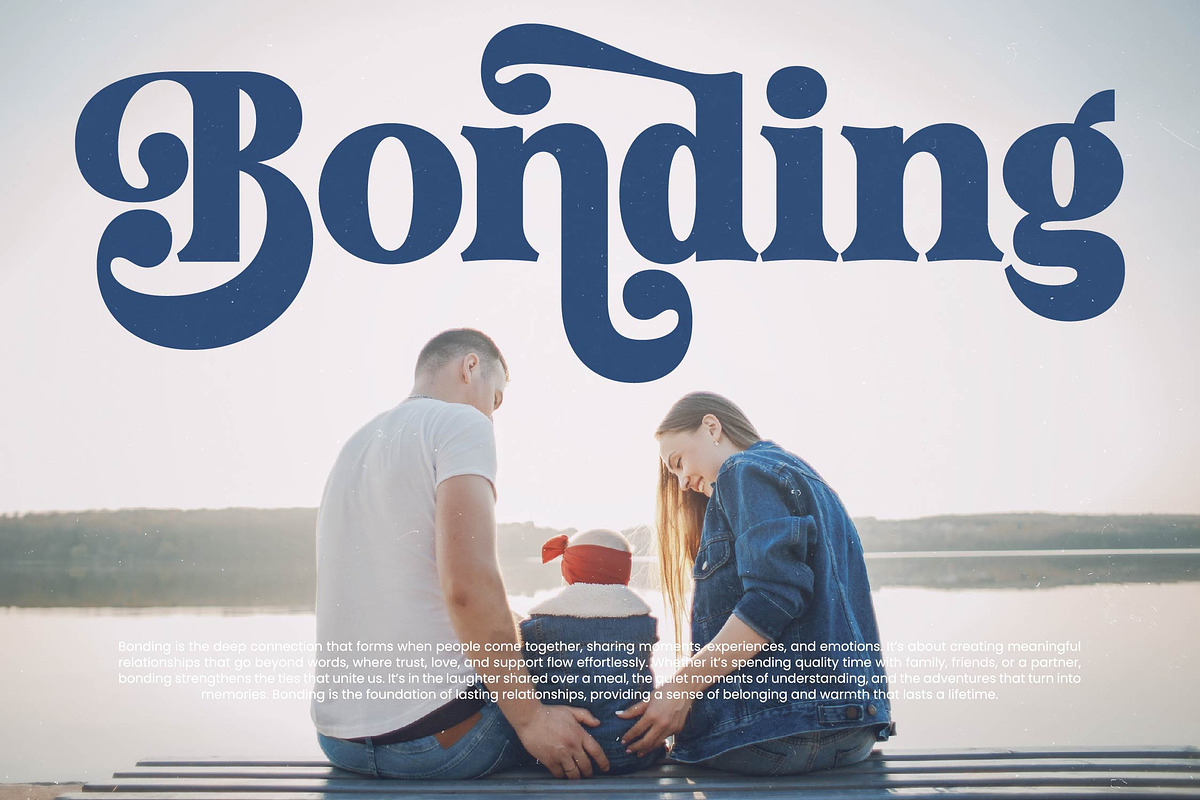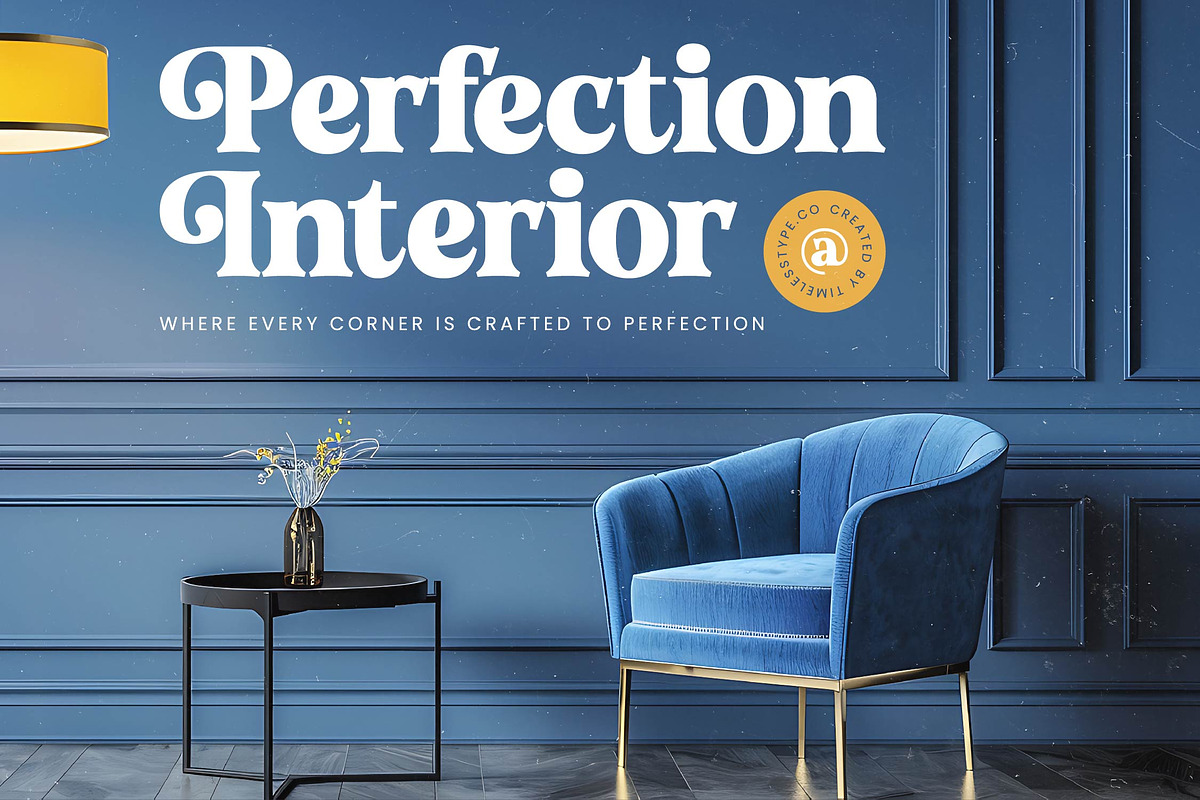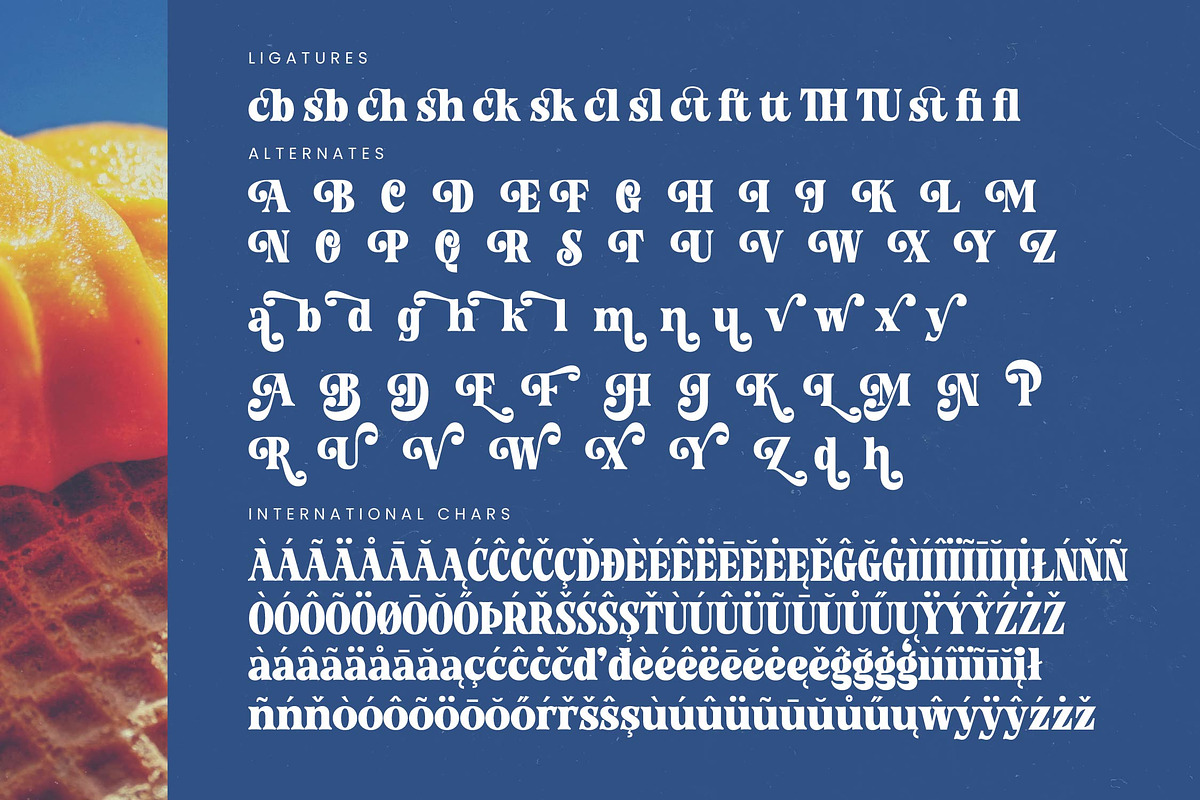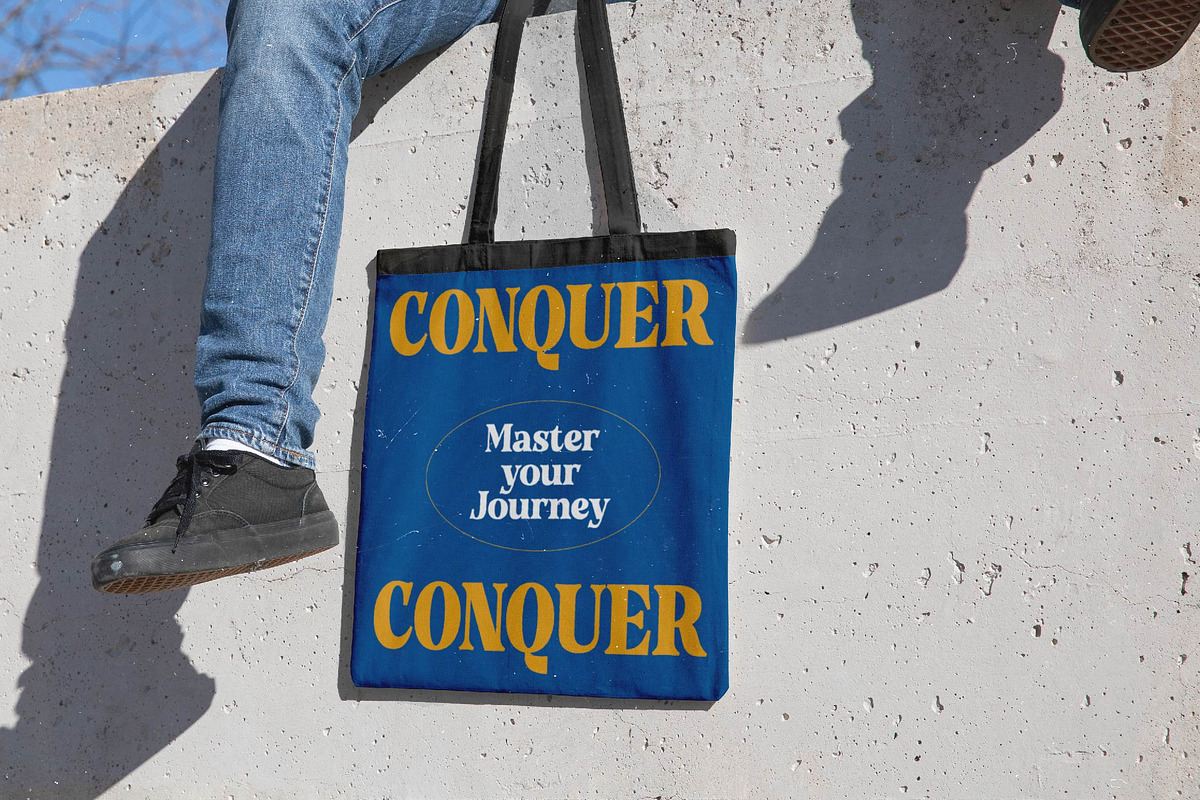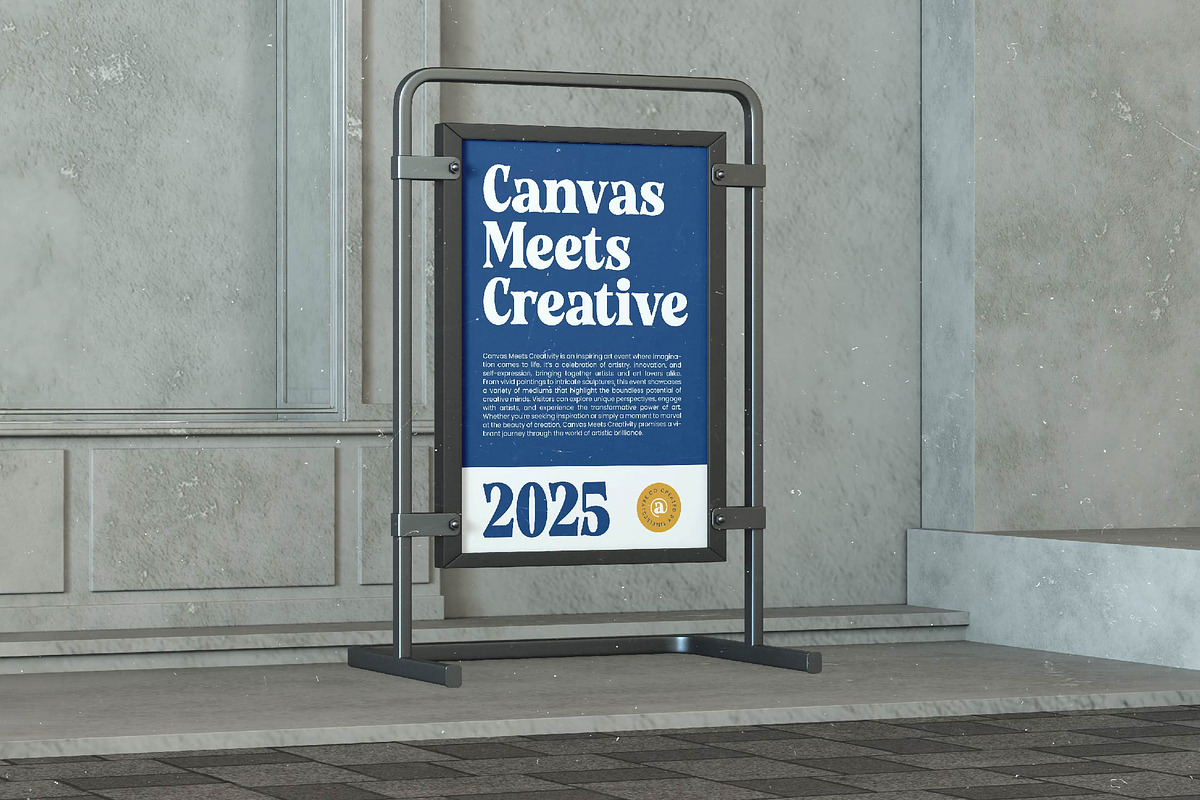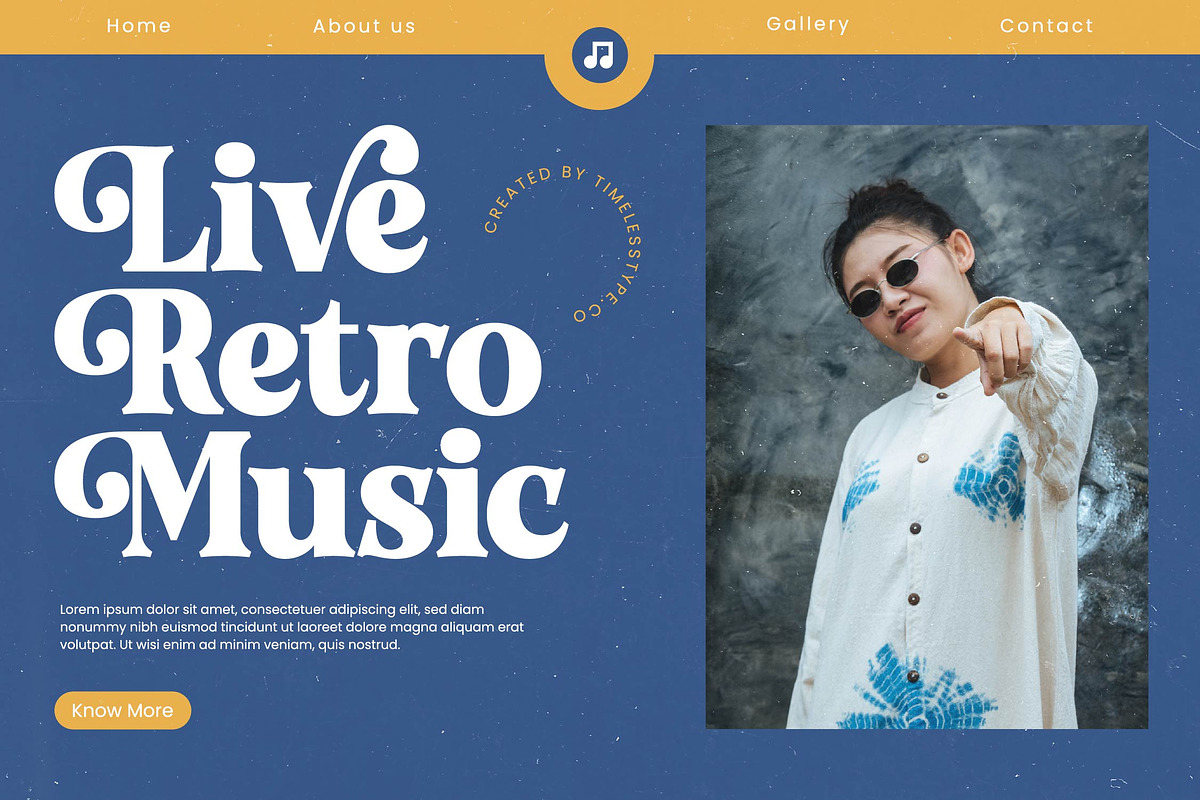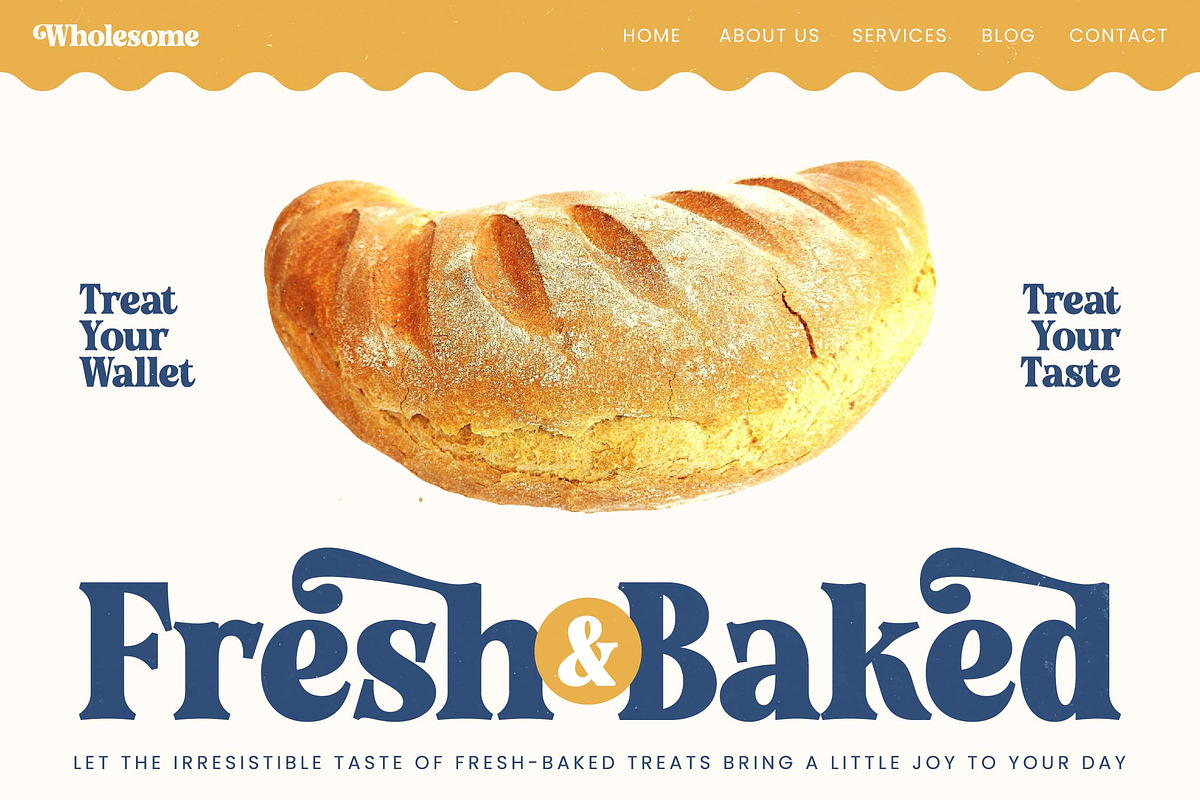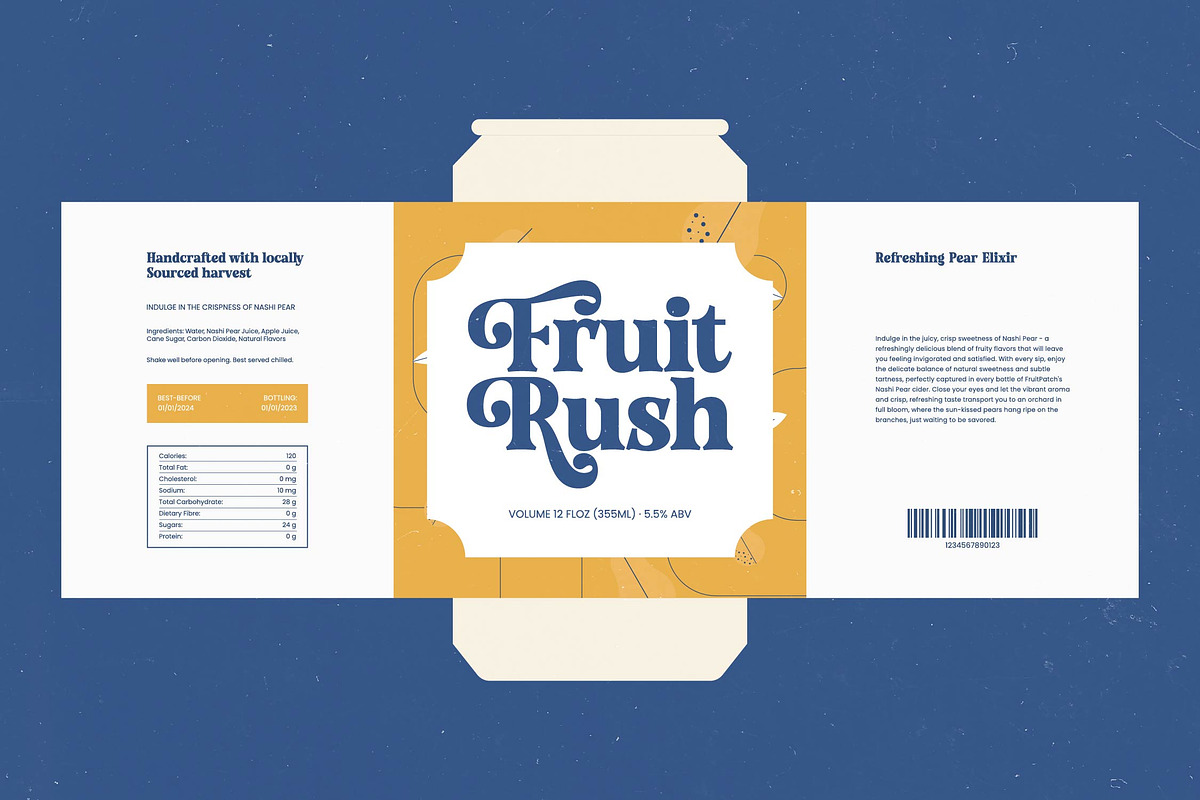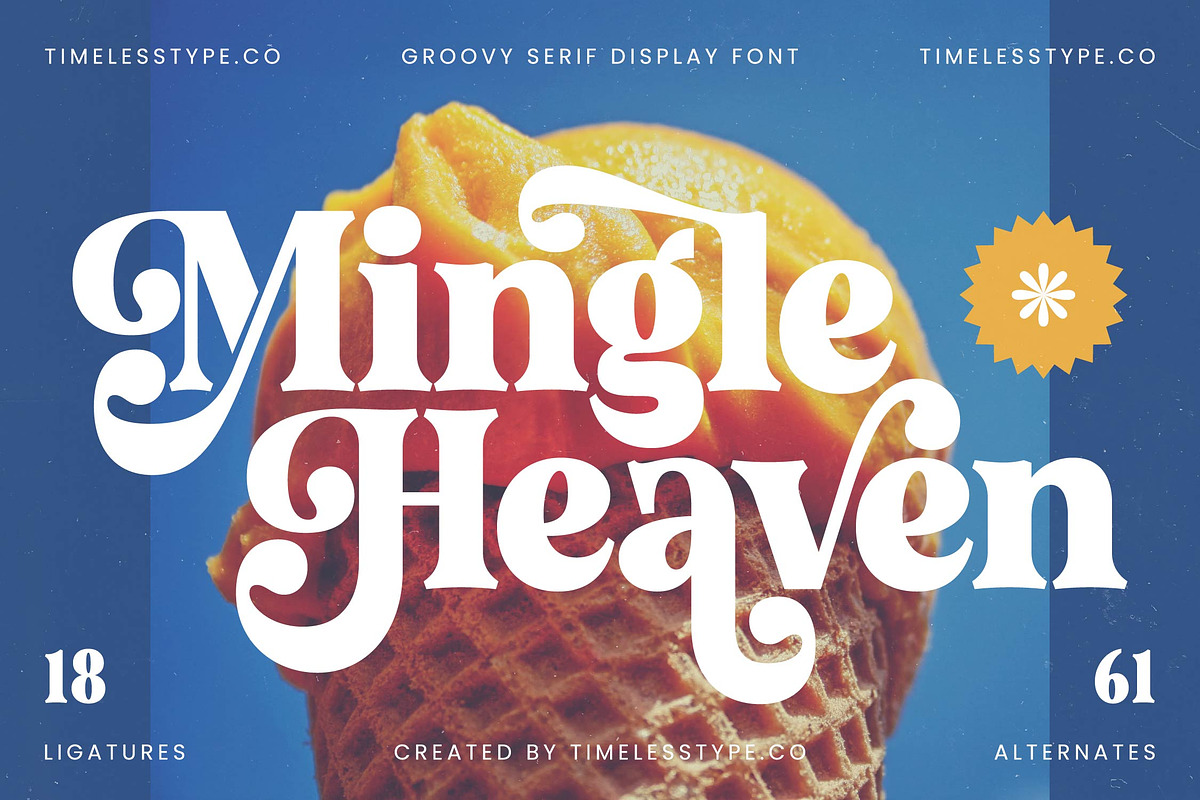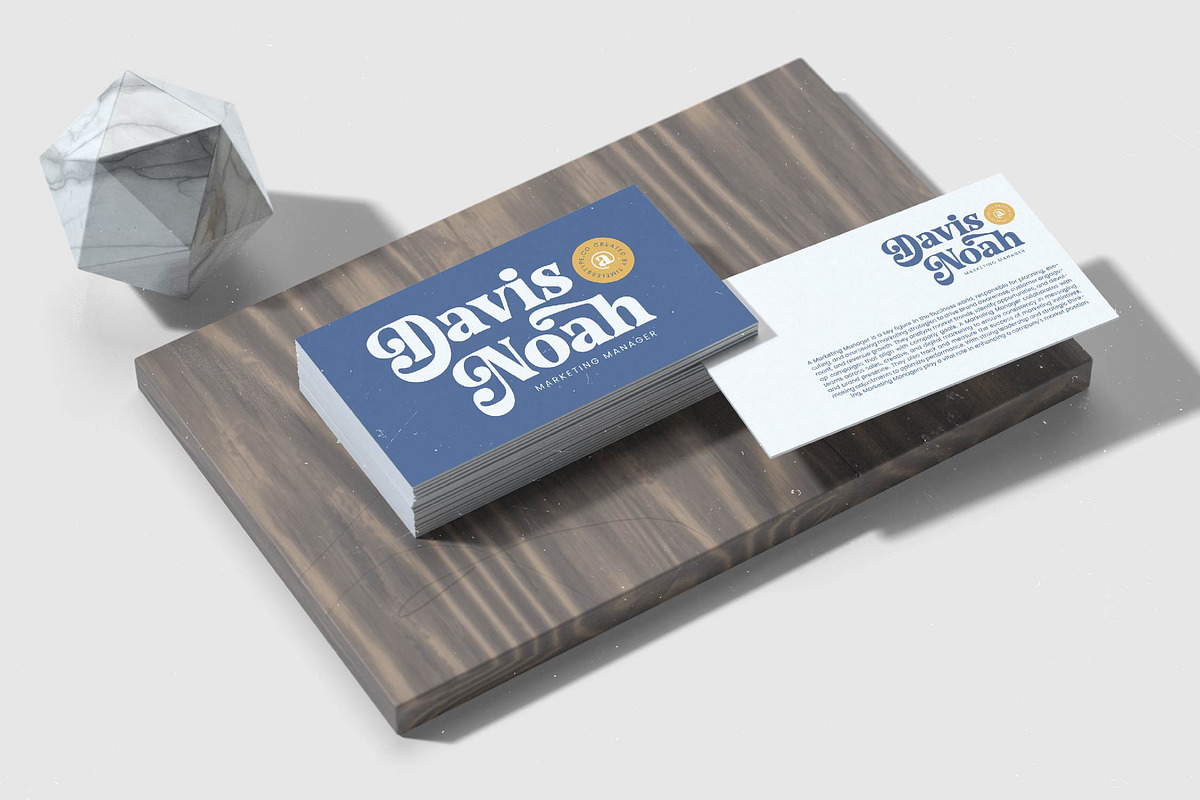
Mingle Heaven Groovy Retro Serif
Indulge in the sweet, nostalgic curves of Mingle Heaven, a typeface designed to elevate your visual storytelling to a state of pure bliss. This font brings a sense of effortless charm and sophisticated playfulness to every canvas it touches, ensuring your message is felt as much as it is read.
Drawing inspiration from the vibrant, expressive energy of the 1970s, this typeface captures the essence of golden hour aesthetics and retro summer vibes. It is like a soft-serve swirl of typography, blending vintage warmth with a crisp, contemporary edge that feels entirely new yet comfortably familiar.
With its modern serif display architecture, this font balances bold presence with delicate, flowing details to create a lasting branding impact. It is a luxury typography choice that commands attention through a high-contrast serif design, making it the perfect editorial font for designers who refuse to blend into the background.
Staying ahead of the modern serif trend, this typeface taps into the current global demand for character-driven typography that tells a unique story. It perfectly aligns with the rise of editorial display fonts that prioritize personality over sterile minimalism, giving creators the ultimate tool to craft standout visual identities.
From high-end logo design and comprehensive branding systems to the glossy pages of a chic editorial spread, this font excels in diverse environments. It adds an air of sophistication to premium packaging, romantic wedding stationery, and the fast-paced, high-glamour world of fashion marketing.
This comprehensive package includes 18 unique ligatures and 61 stunning alternates to provide you with endless creative possibilities. With a full set of international characters and robust multilingual support, you can unlock the full potential of your global projects with elegant swashes that define your signature style.
- Ligature 18 Alternate 61